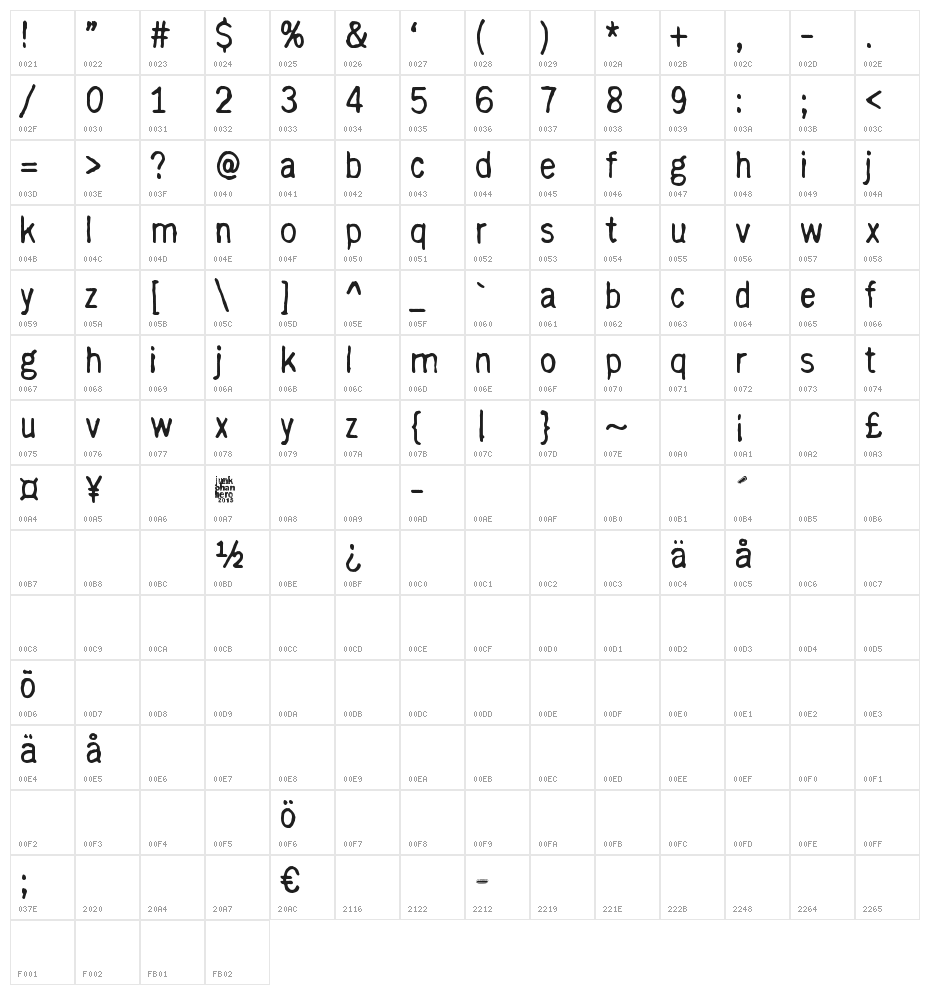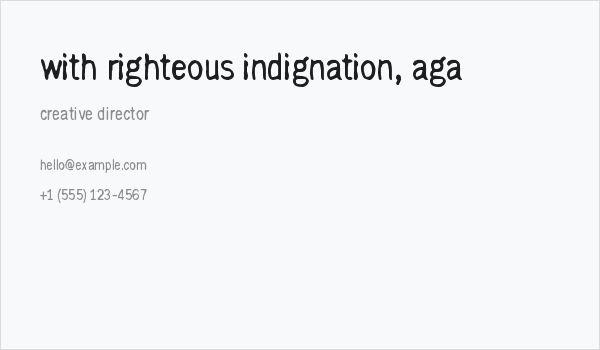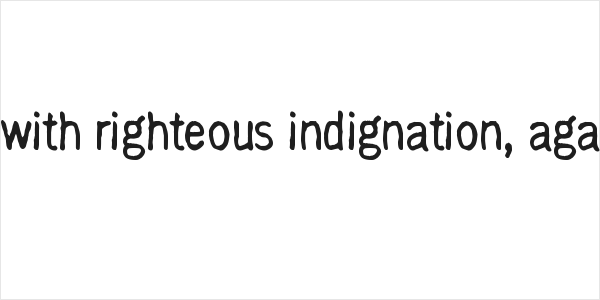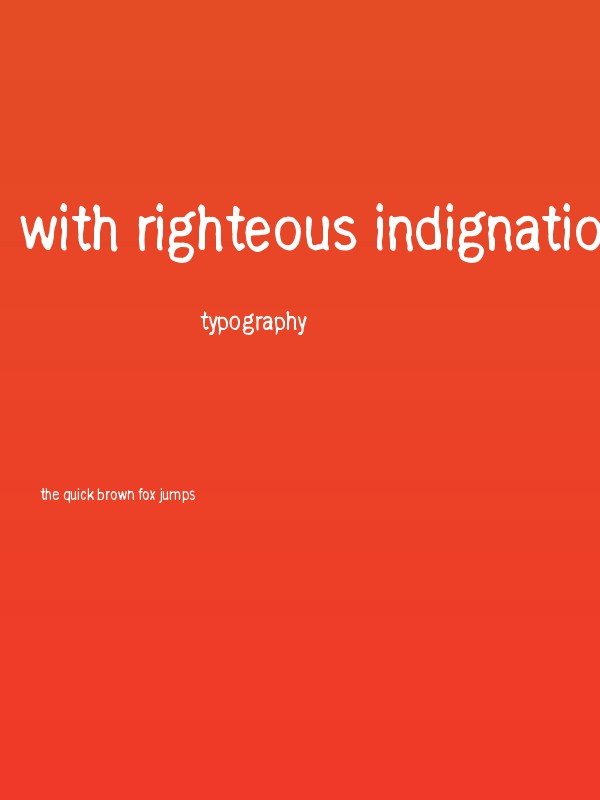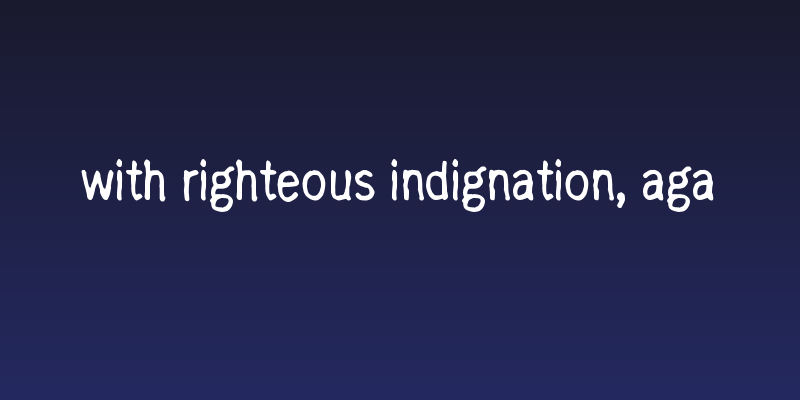
with righteous indignation, aga Font
with righteous indignation, aga Description
This font features a playful and informal style with a hand-drawn appearance. The characters are slightly irregular, giving it a whimsical and approachable feel. The strokes are consistent in thickness, providing a uniform look across all letters and numbers. The font includes both uppercase and lowercase letters, numerals, and a variety of special characters. Its organic and casual design makes it suitable for projects that require a personal touch or a creative flair.
| Proposed Projects | Ideal for children's books, greeting cards, casual branding, and creative projects that require a personal touch. |